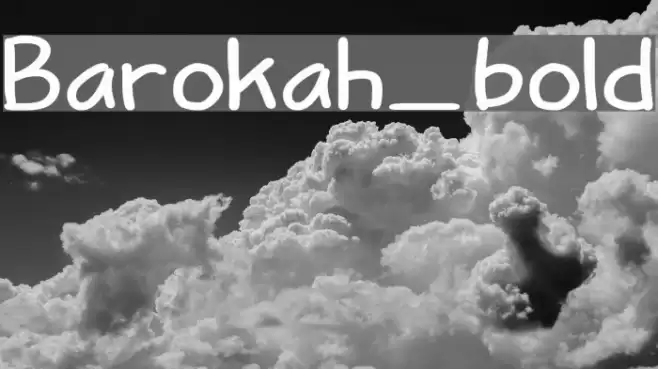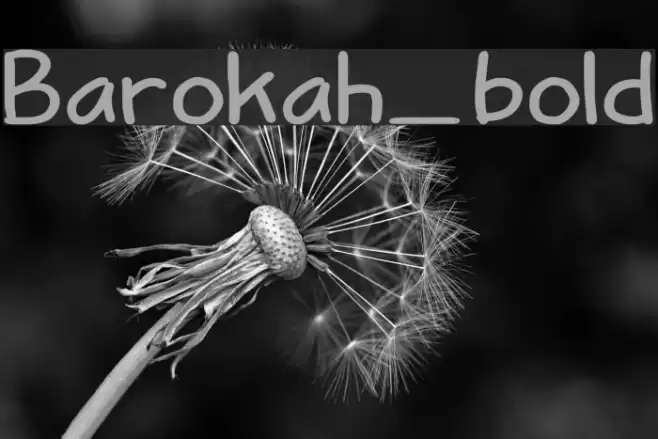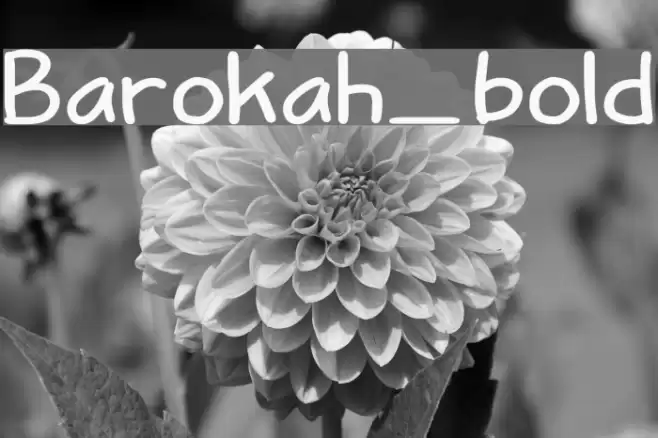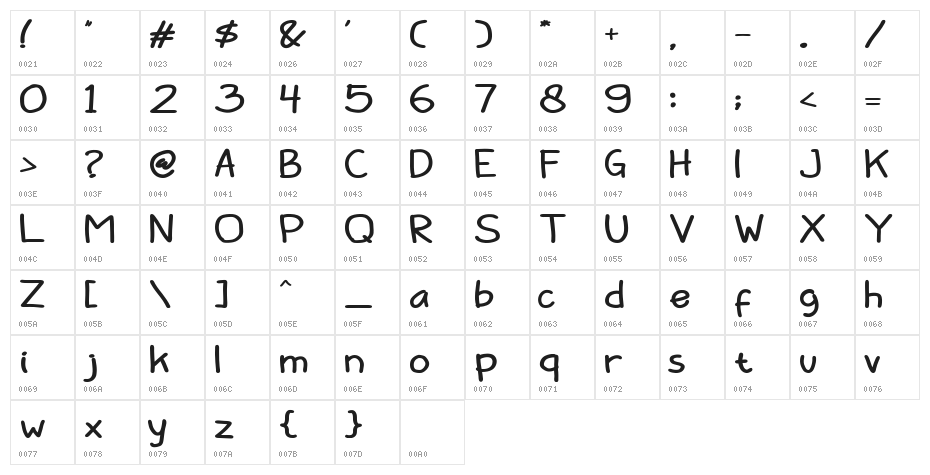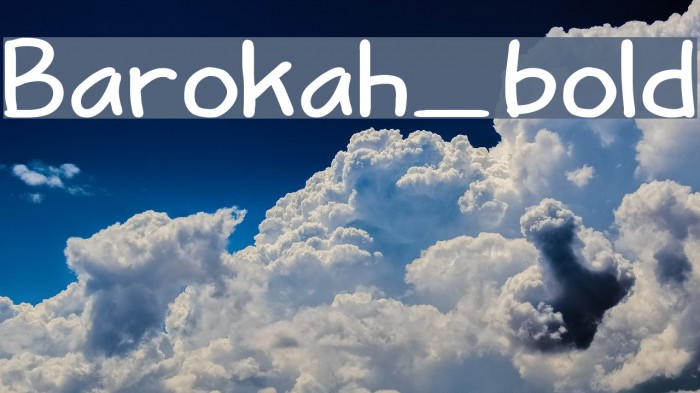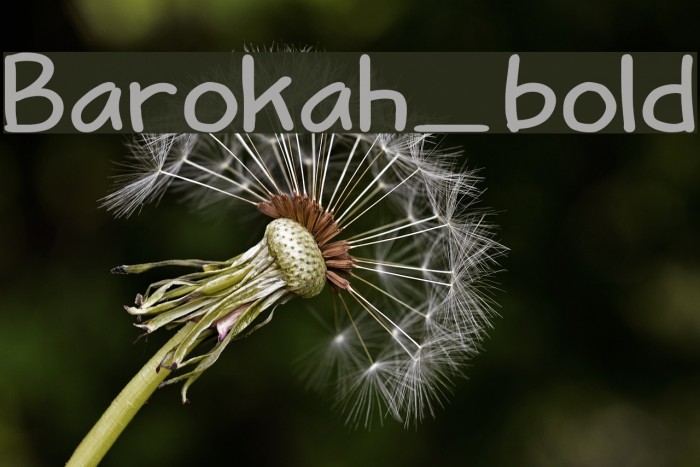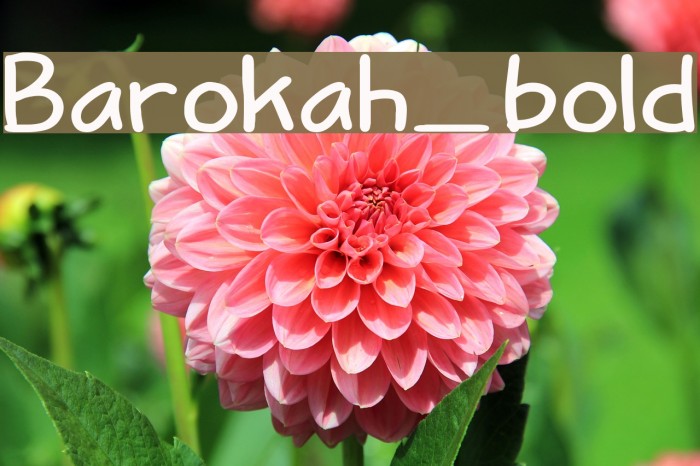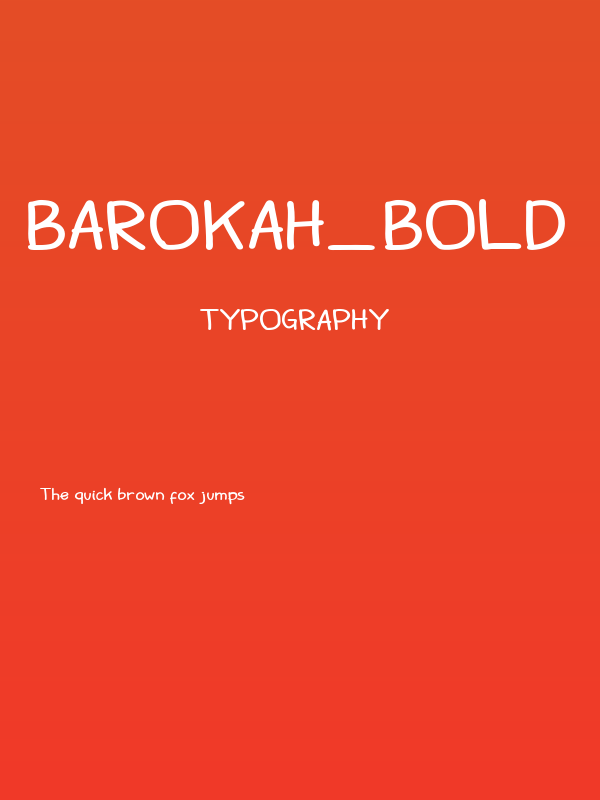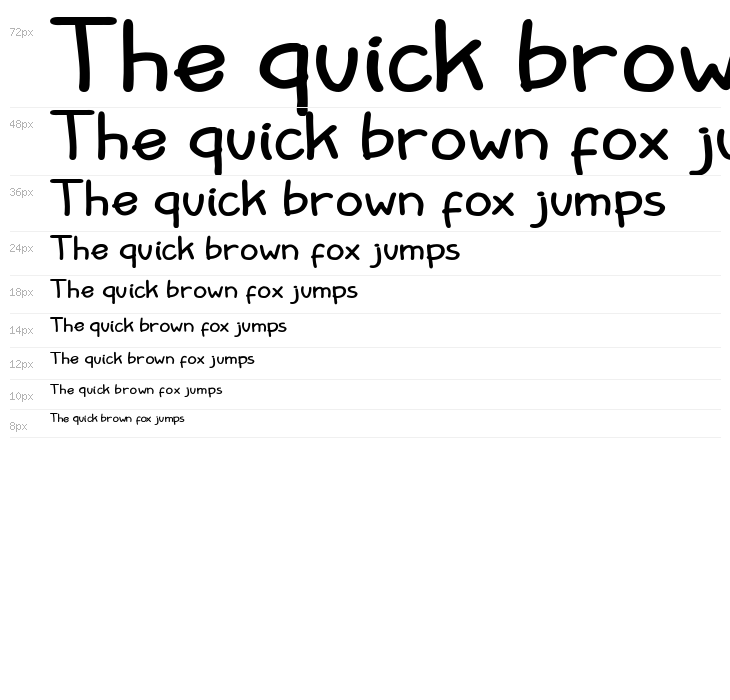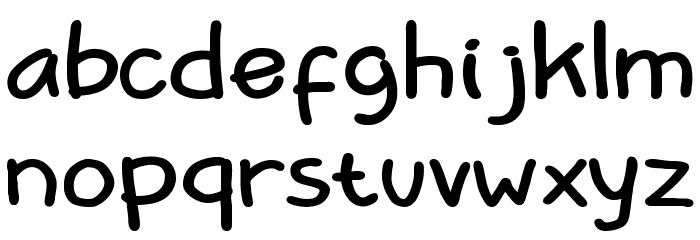
Barokah_bold
This font features a playful and casual handwritten style, characterized by its rounded and slightly irregular letterforms. The strokes are consistent in weight, giving it a bold appearance that maintains readability. The uppercase and lowercase letters are well-balanced, with a friendly and approachable aesthetic. The numerals and special characters follow the same design principles, ensuring uniformity across all glyphs. This font is ideal for projects that require a personal touch, such as invitations, greeting cards, or children's book covers. Its informal style makes it suitable for conveying warmth and friendliness.
A playful, bold handwritten font with rounded, consistent strokes from Handwritten fonts.
- Proposed Projects: Ideal for invitations, greeting cards, children's books, and casual branding.
- Overall Style: Casual, Playful
- Use Case: Headlines, Logos, Informal Text